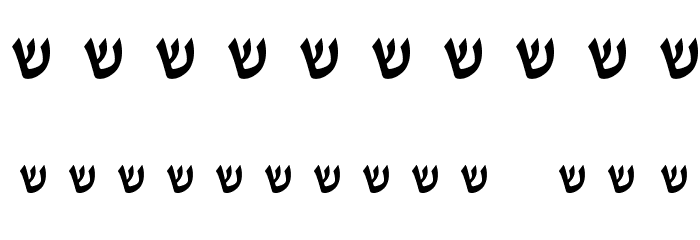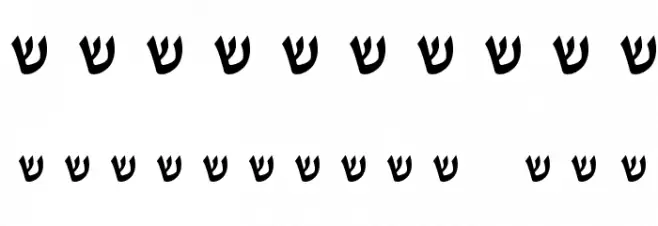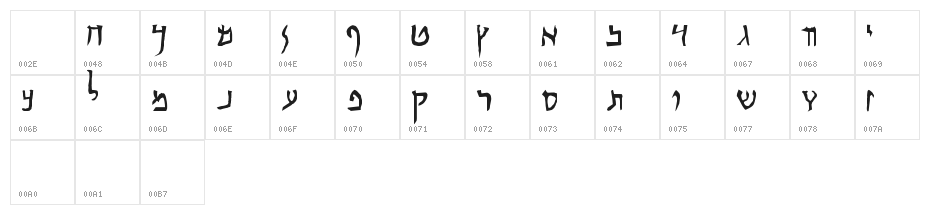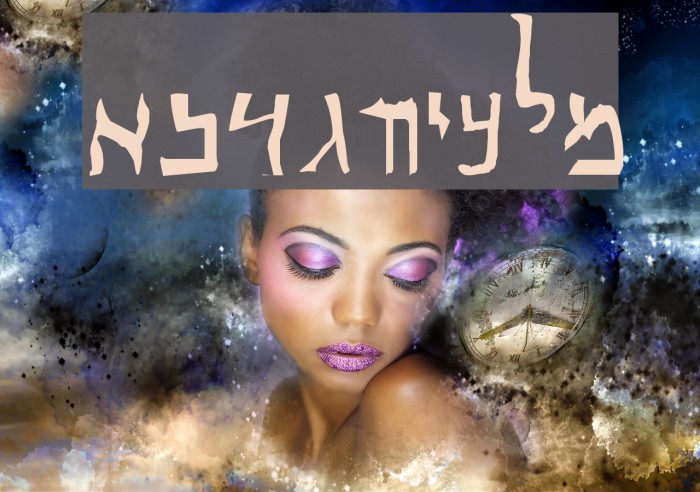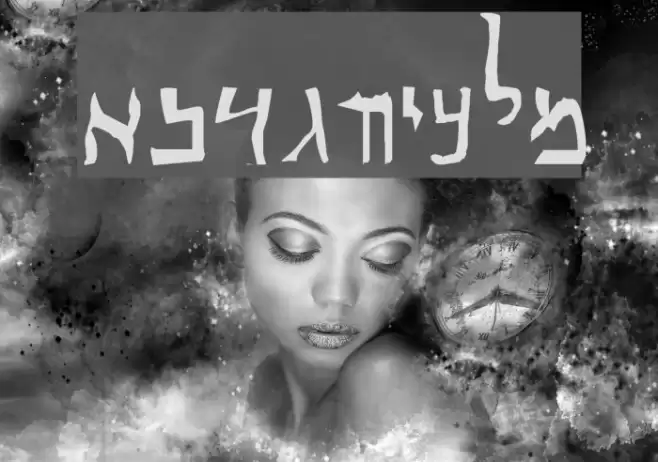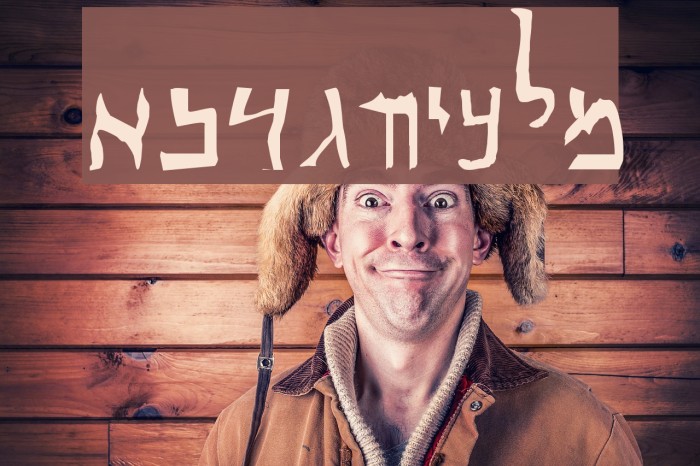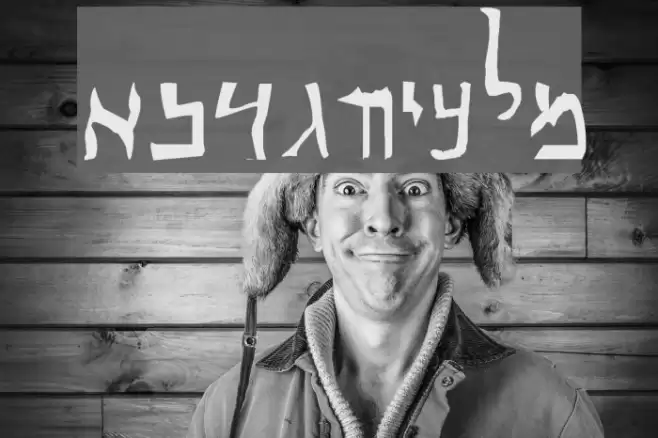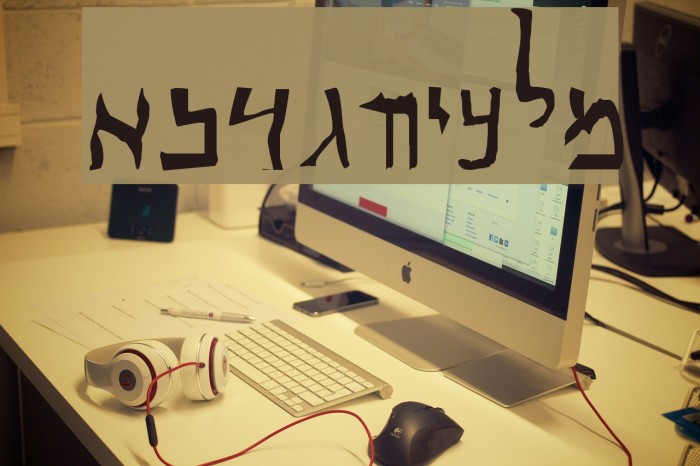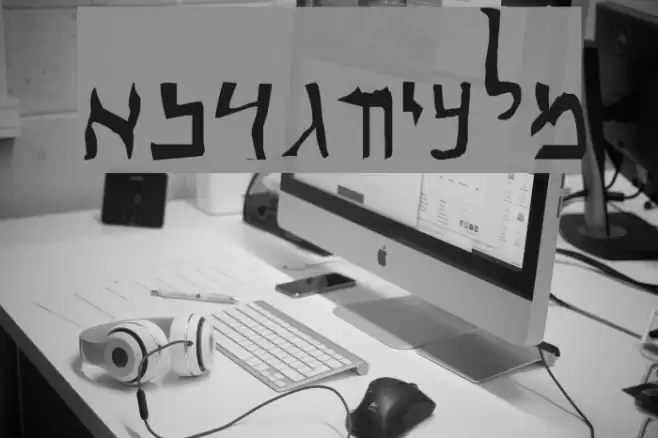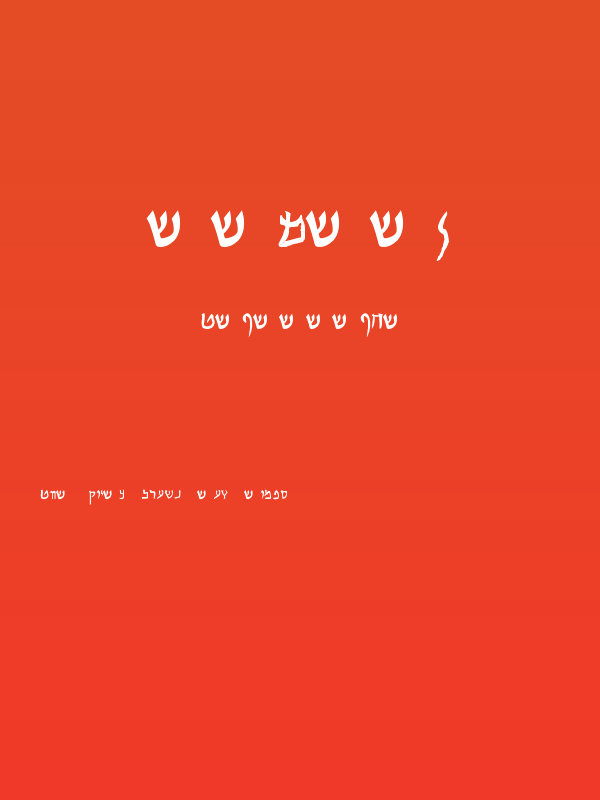
Qumr-n Font
Qumr-n Description
This font is a decorative script that draws inspiration from ancient scripts, featuring a unique blend of sharp and flowing lines. The characters exhibit a hand-drawn quality, with varying stroke thickness that adds a dynamic and historical feel. The font's design is reminiscent of ancient manuscripts, with a slightly irregular baseline that enhances its authenticity and charm. The overall appearance is both artistic and legible, making it suitable for projects that require a touch of antiquity and elegance.
| Use Case | Logos, Artistic projects, Themed event materials |
| Proposed Projects | Ideal for historical documents, themed event invitations, artistic projects, and branding that requires an ancient or mystical aesthetic. |